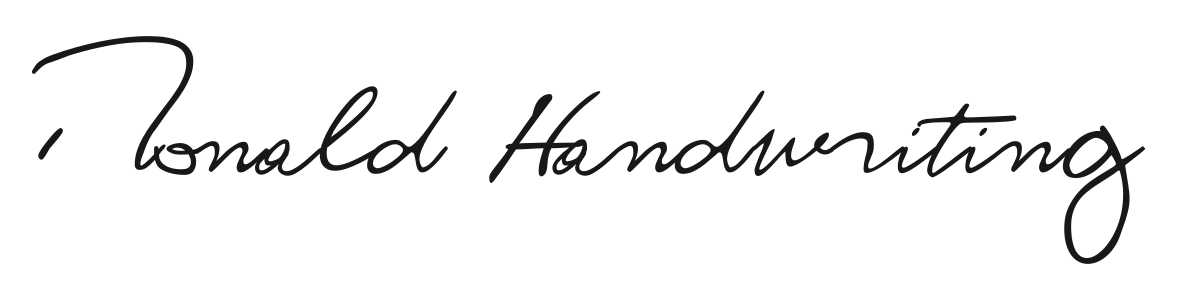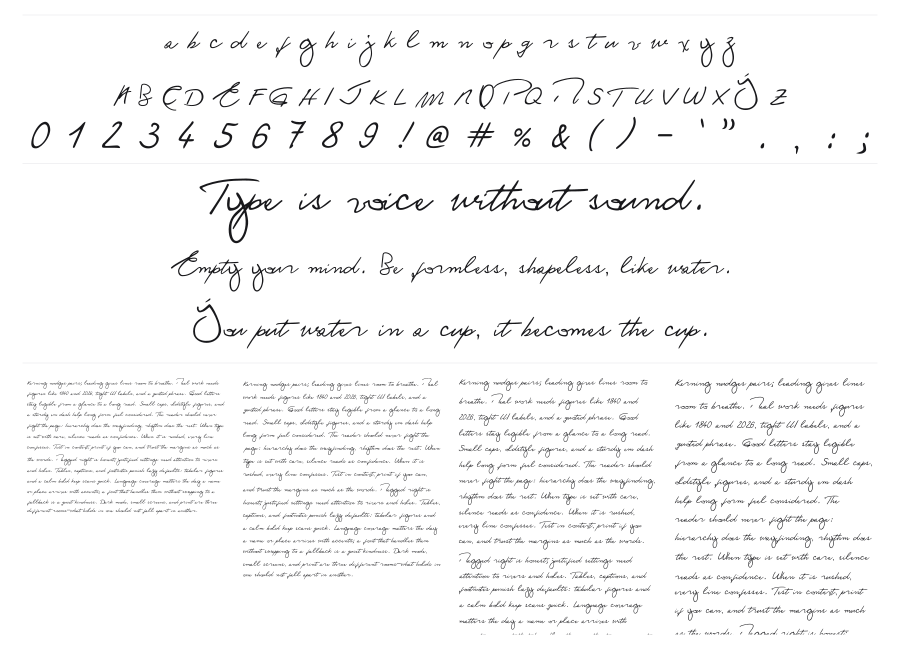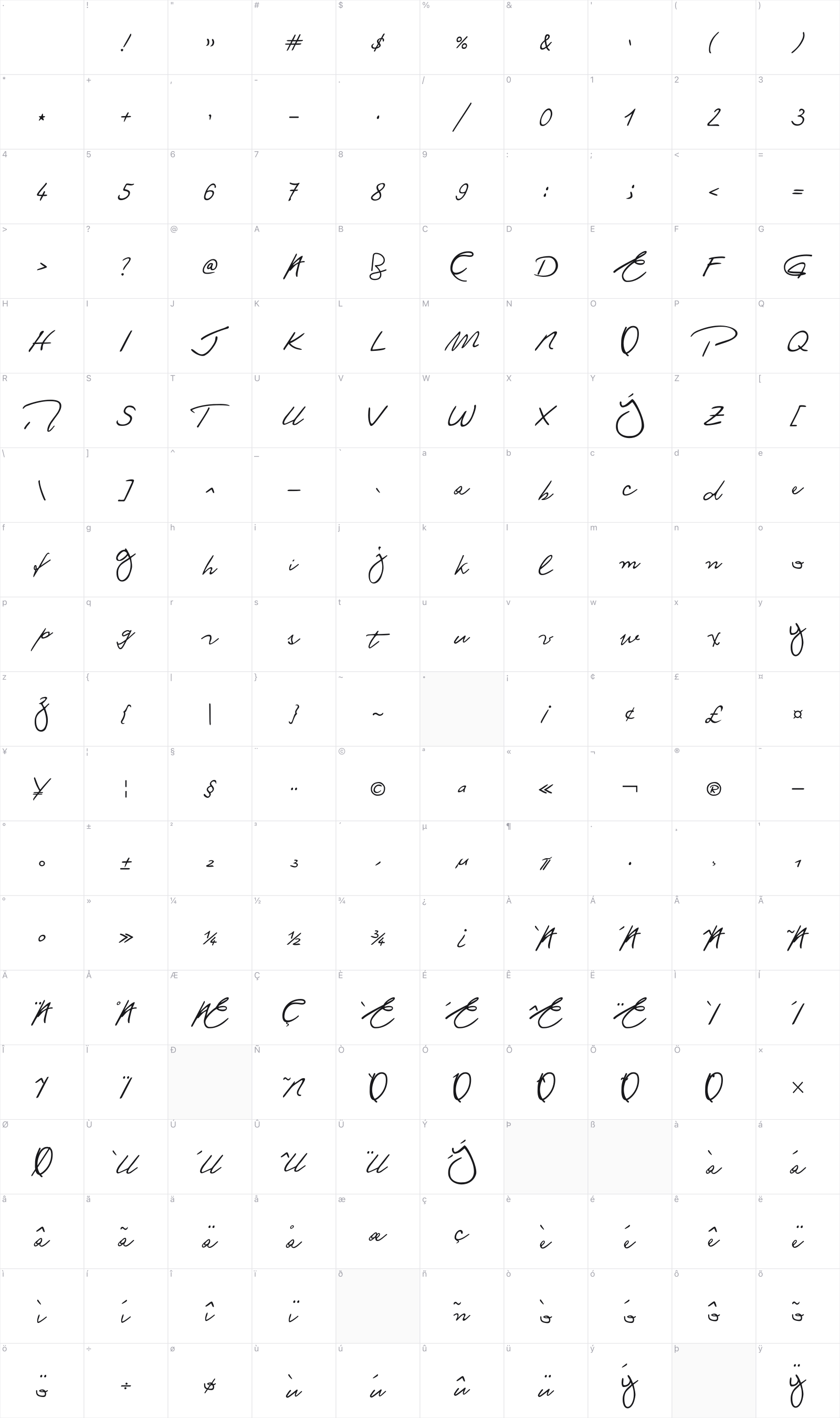
Ronald Handwriting
by Paul Sutcliffe
Ronald Handwriting is a digitized script taken directly from the author's father's handwriting. The natural irregularity and flowing connected strokes give it a warmth and authenticity that no designed script can fully replicate. It carries a quiet personal story in every word.